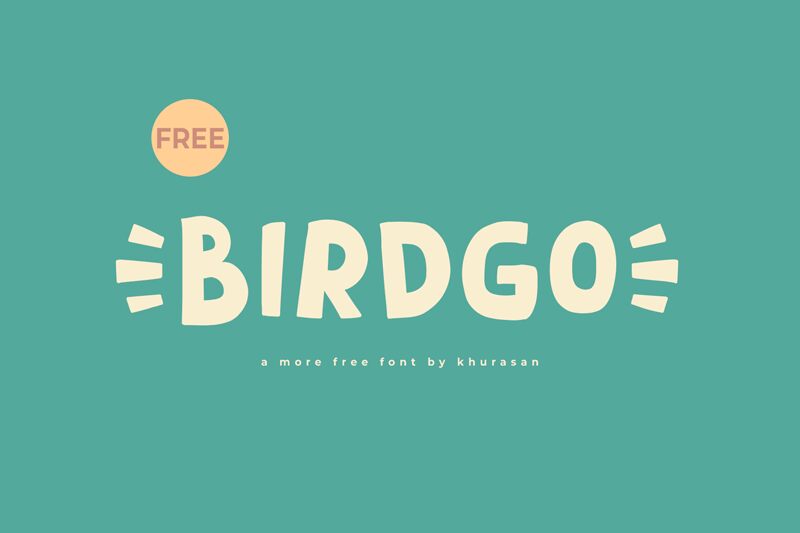
Birdgo
Birdgo, a bold display font crafted by Khurasan, bursts with a playful cartoon style that instantly captivates and charms. Its rounded forms and whimsical twists exude a friendly and approachable vibe, making it an excellent choice for projects that require a touch of lightheartedness.
The robust weight of Birdgo adds an impactful presence to any creative work, ensuring that text stands out with clarity and personality. This typeface is not just about attracting attention; it's about crafting stories with each letter.
Ideal for children's books, animated movie titles, or branding projects looking to inject fun into their visual identity, Birdgo offers versatility while maintaining its distinct character. Embrace the aesthetic appeal of this delightful typeface to bring warmth and energy to your designs.